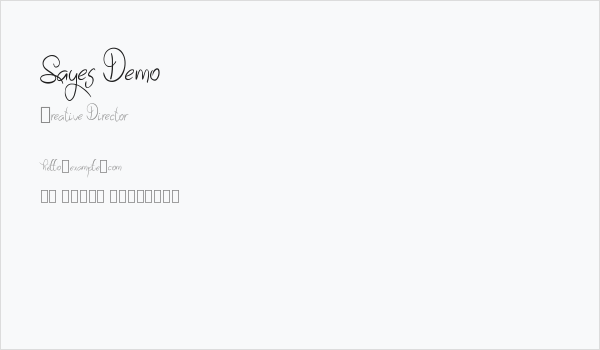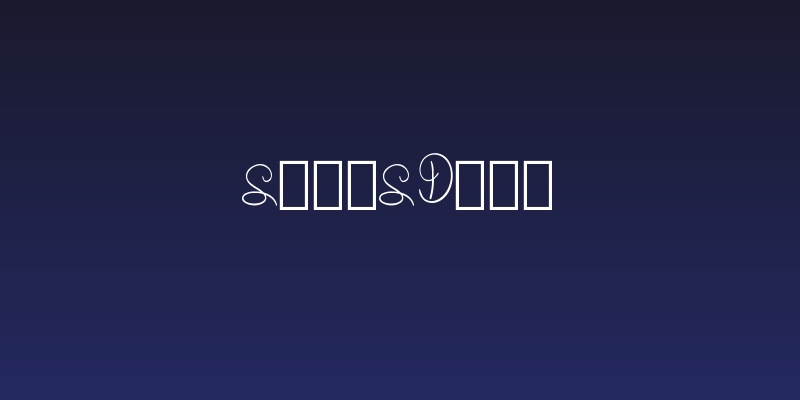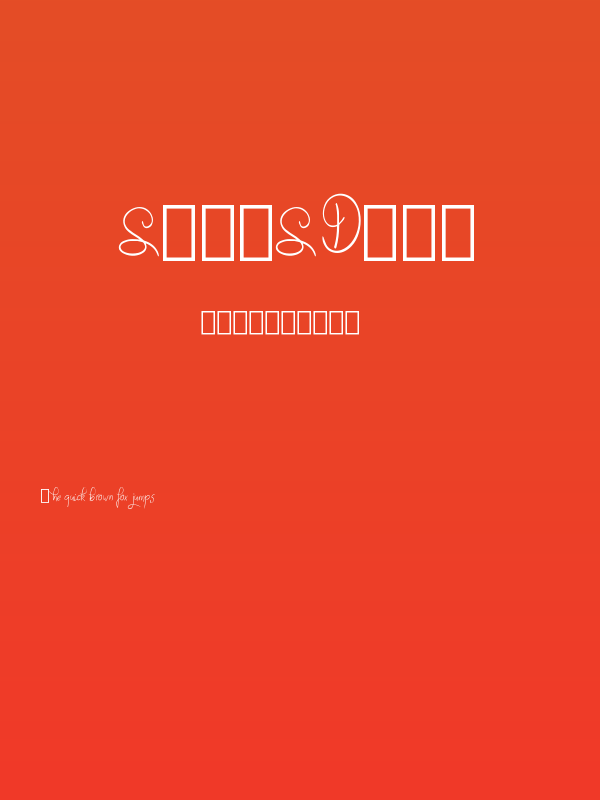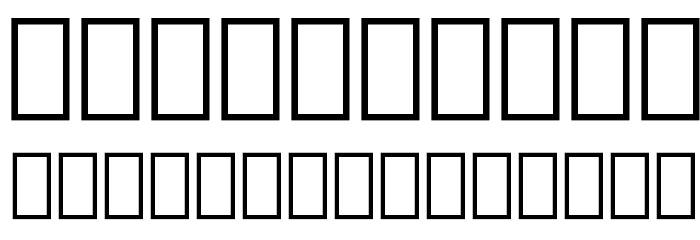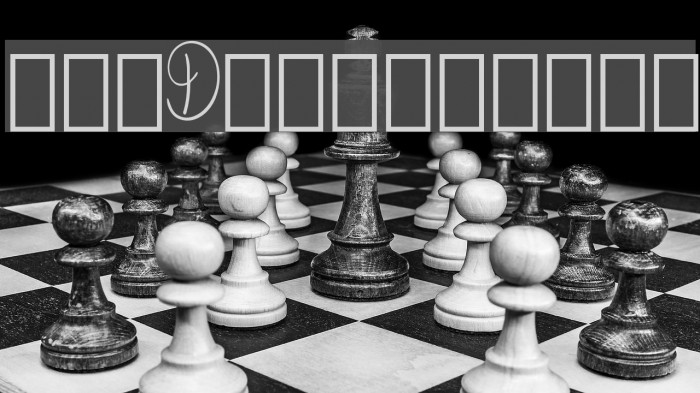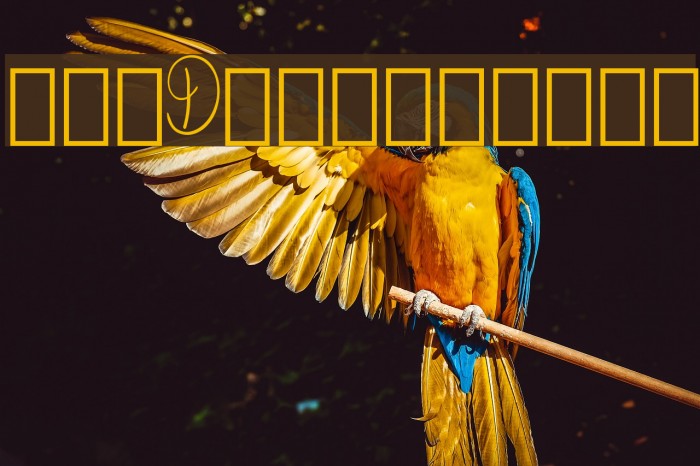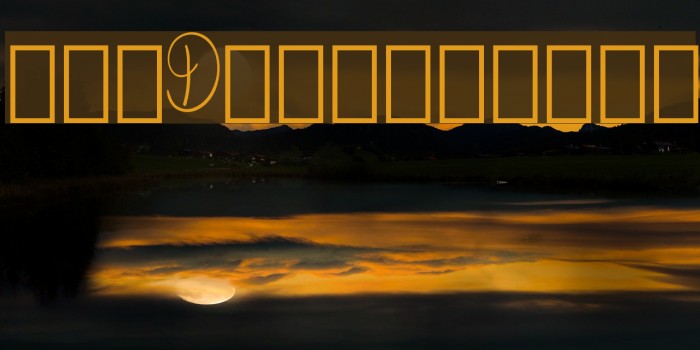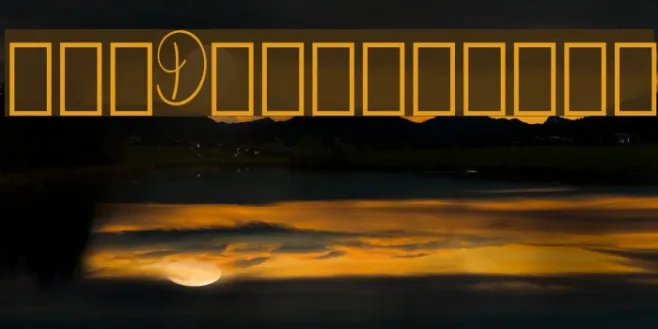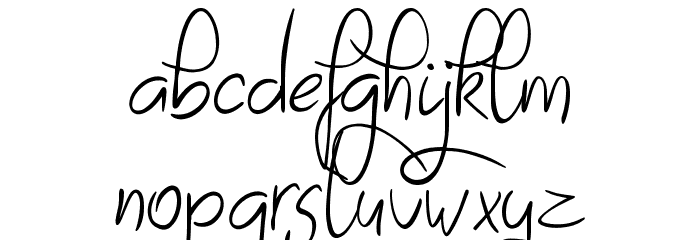
Sayes Demo Font
Sayes Demo Description
This font features an elegant and flowing script style, characterized by its intricate loops and swashes. The lowercase letters are particularly ornate, with a graceful and fluid appearance that suggests a handwritten quality. The uppercase letters are more restrained but still maintain a sense of sophistication and style. The font's overall aesthetic is both classic and decorative, making it suitable for projects that require a touch of elegance and refinement. The characters are well-spaced, allowing for readability while maintaining the artistic flair of the script.